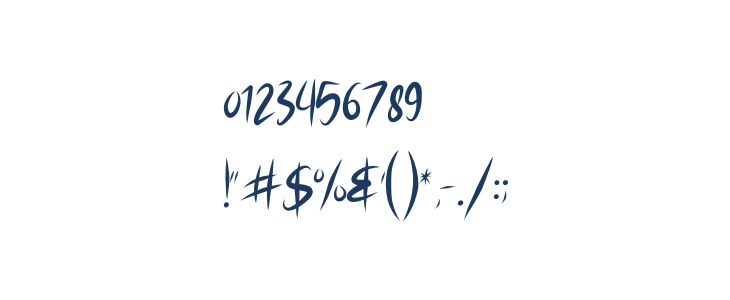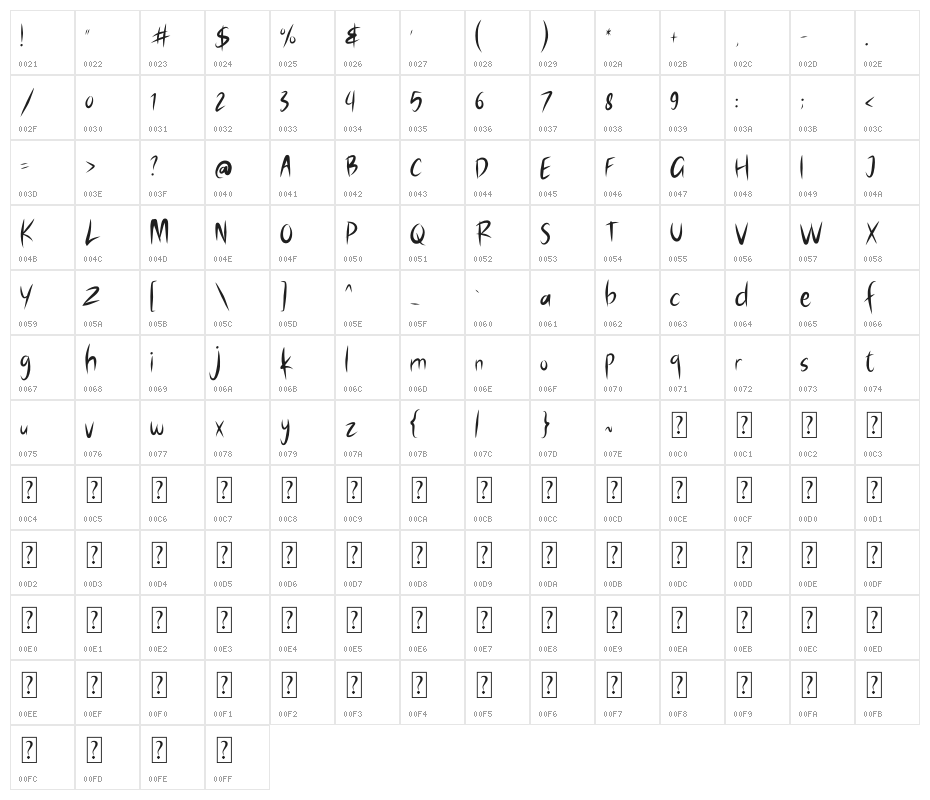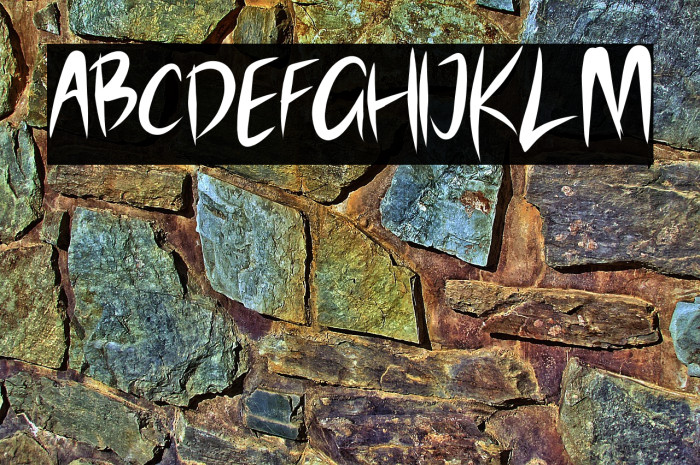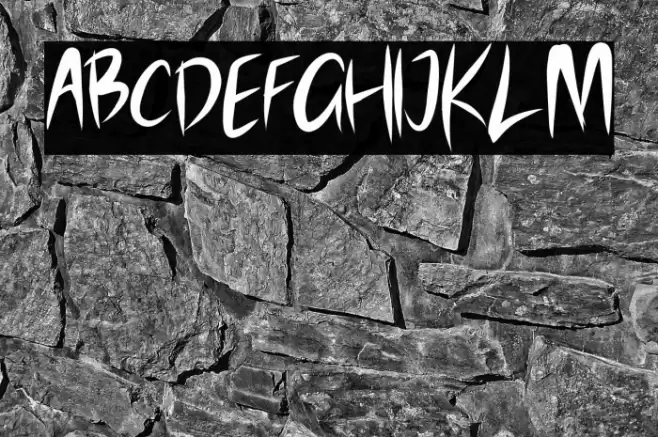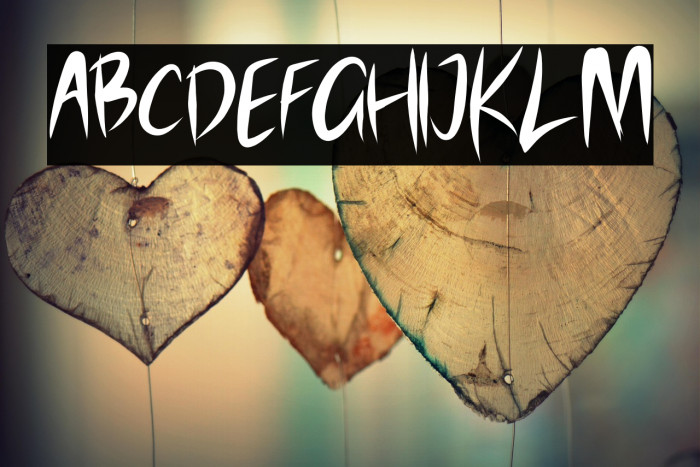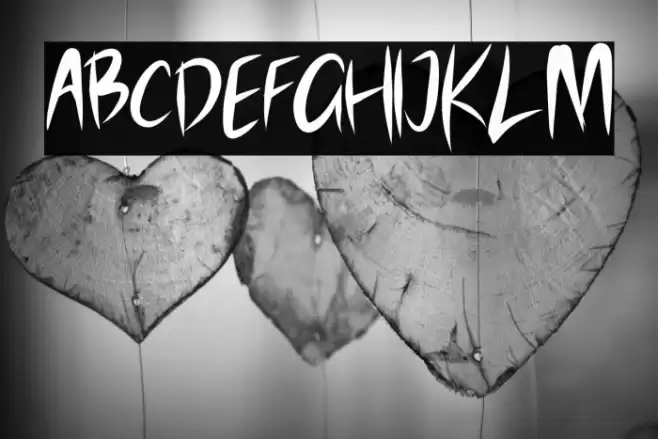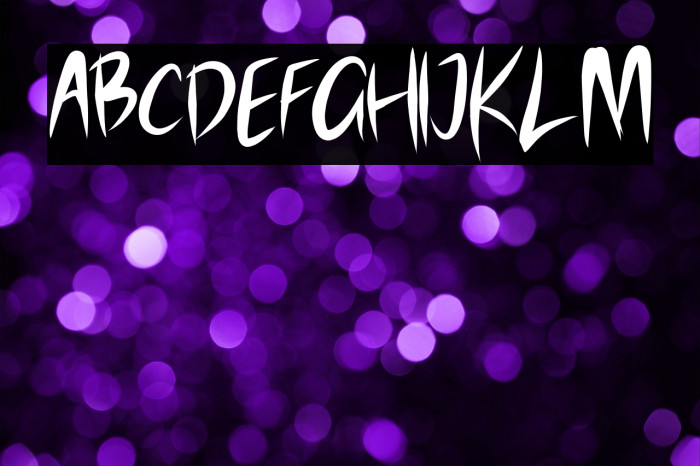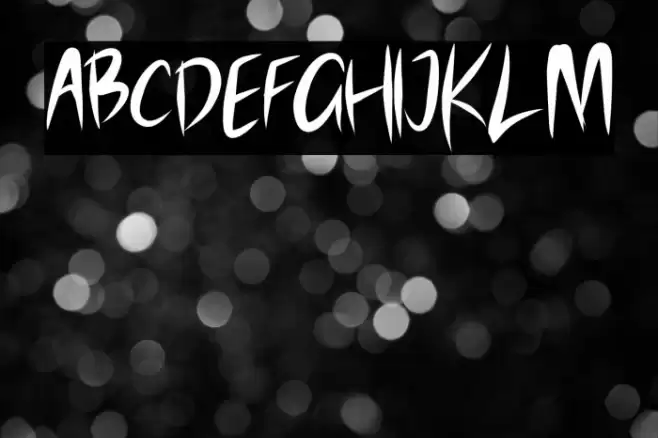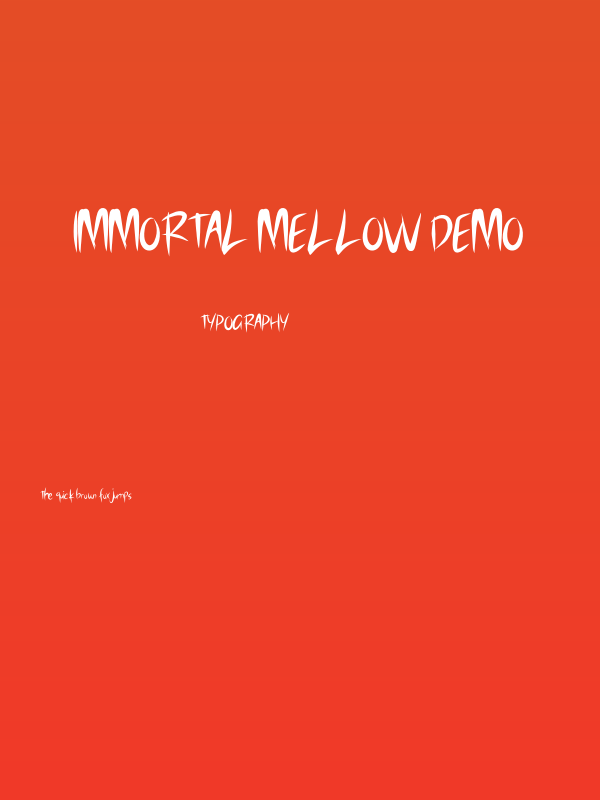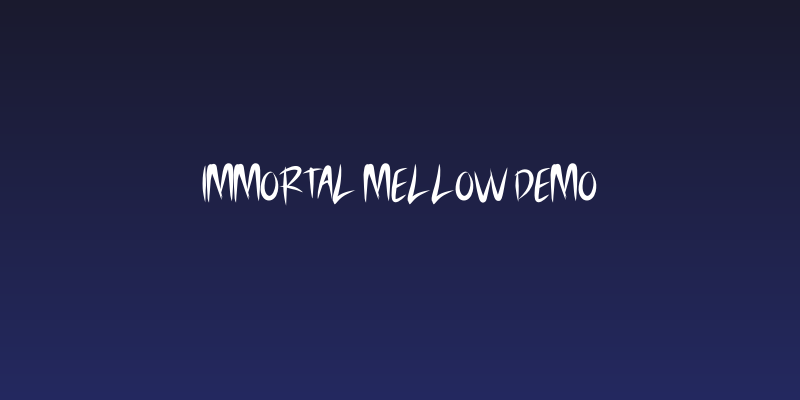
IMMORTAL MELLOW DEMO Font
IMMORTAL MELLOW DEMO Description
This font features a dynamic and energetic style, characterized by sharp, angular strokes and a slightly irregular baseline. The uppercase letters are bold and commanding, with a sense of movement and flair. The lowercase letters maintain this energy, offering a more casual and approachable feel. The numerals are consistent with the overall style, providing a cohesive look. Special characters are creatively designed, adding to the font's unique personality. This font is ideal for projects that require a bold and artistic touch, such as posters, album covers, or branding for creative industries.
| Proposed Projects | Ideal for posters, album covers, branding, and creative industry materials. |